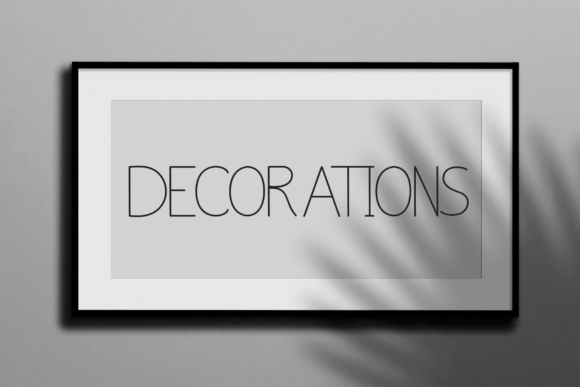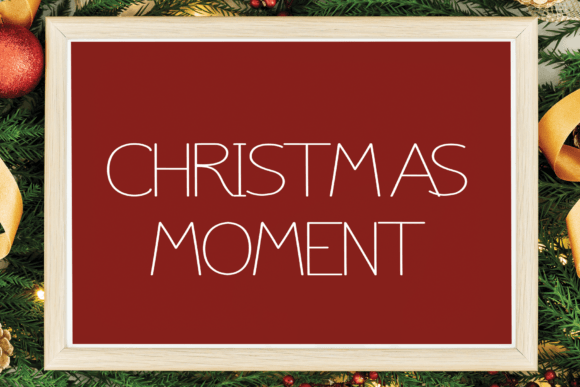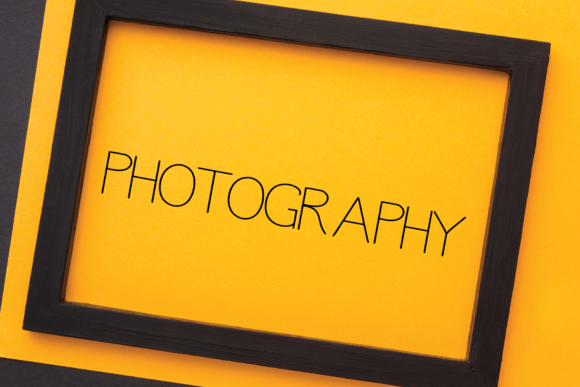
Introduction to Simple Plannaer Font Font
Fonts play a crucial role in design, and the Simple Plannaer Font font is a typeface that brings both character and versatility to any project. Whether you’re working on a branding project, a website, or a print design, the Simple Plannaer Font font offers a unique style that can elevate your work.
Simple Plannaer is a fun and friendly handwritten font.
Whether youβre using it for crafts, digital design, presentations, or creating greeting cards, this font has the potential to become your favorite font, whatever the occasion .
Key Features of Simple Plannaer Font Font
Why Choose Simple Plannaer Font Font?
The Simple Plannaer Font font is more than just a typeface β it’s a design tool that helps you communicate your message with style and clarity. Its unique character set and versatile design make it suitable for a wide range of applications, from elegant invitations to bold headlines.
With its carefully crafted letterforms and balanced proportions, the Simple Plannaer Font font ensures readability and visual appeal across all mediums.
What makes Simple Plannaer Font font special?
The Simple Plannaer Font font stands out with its unique design, exceptional readability, and versatility across various design applications.